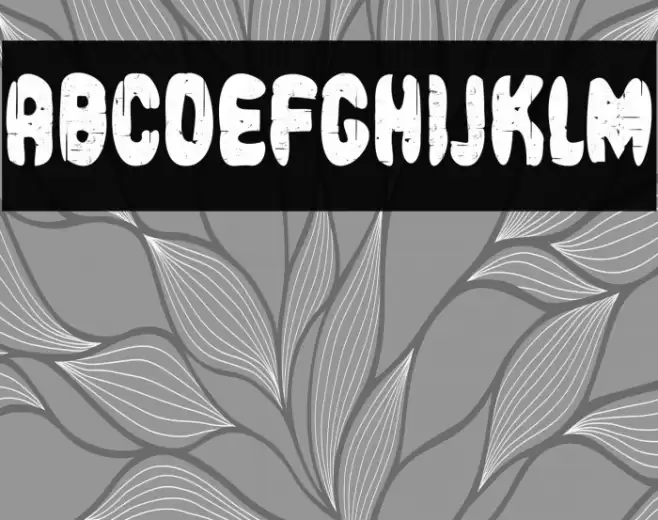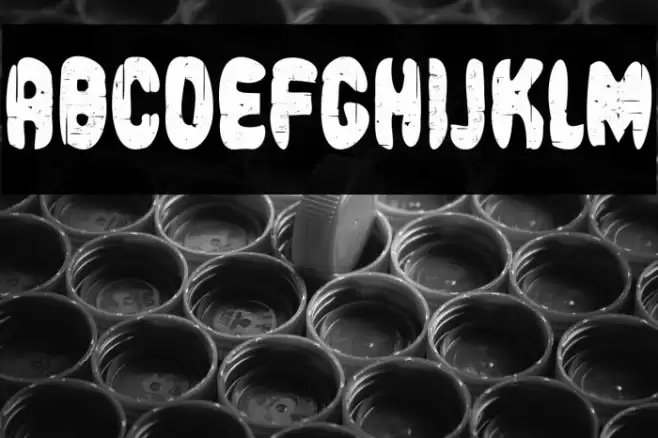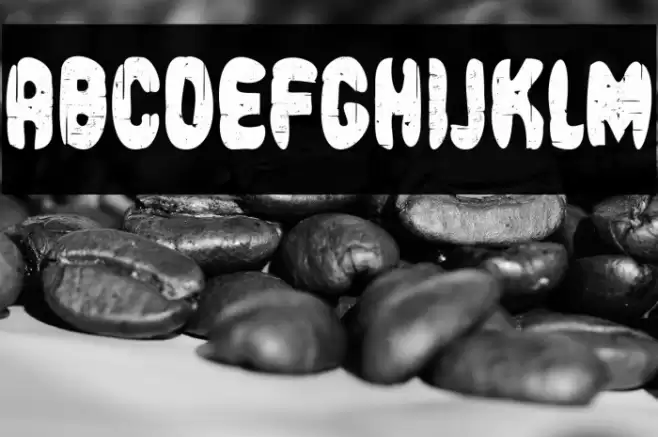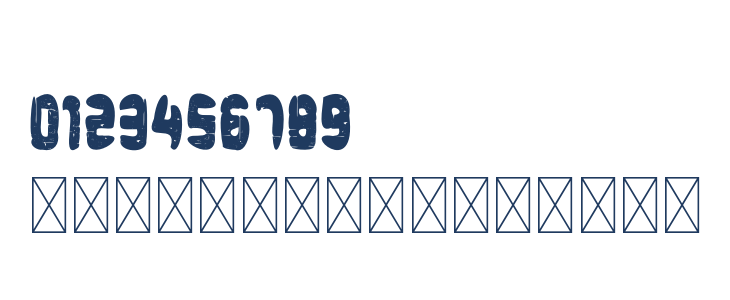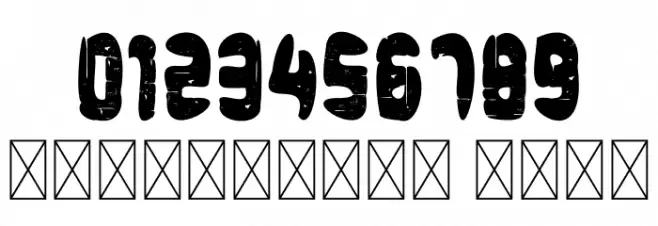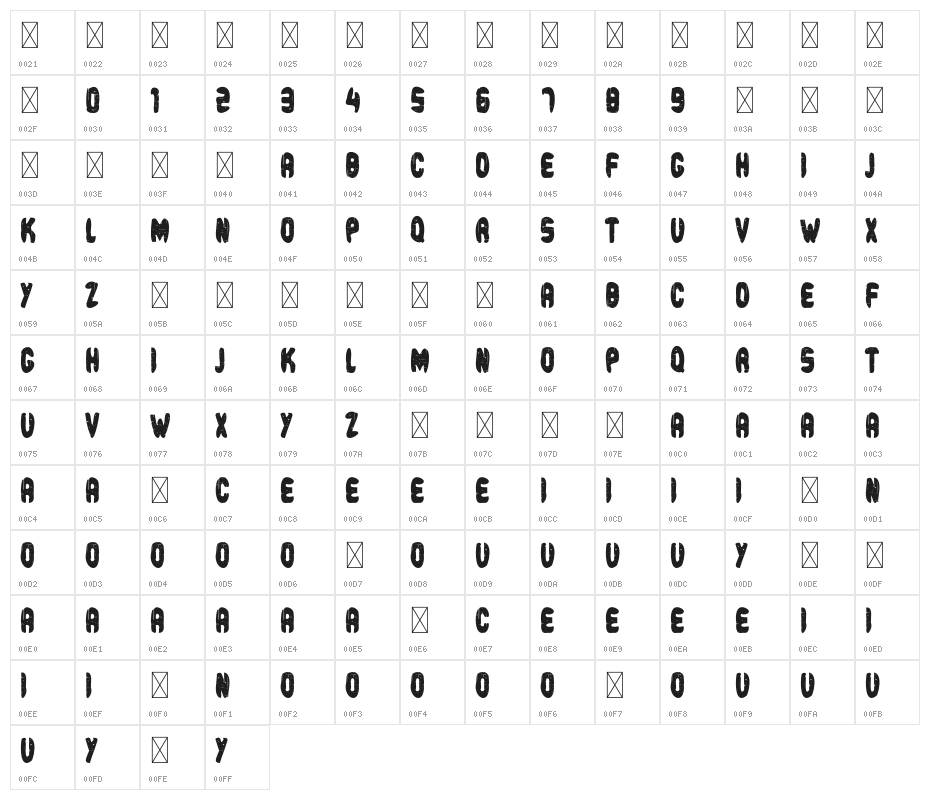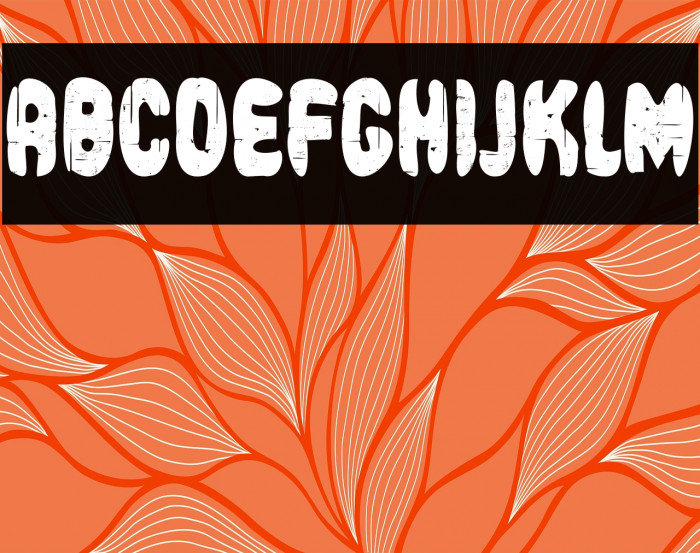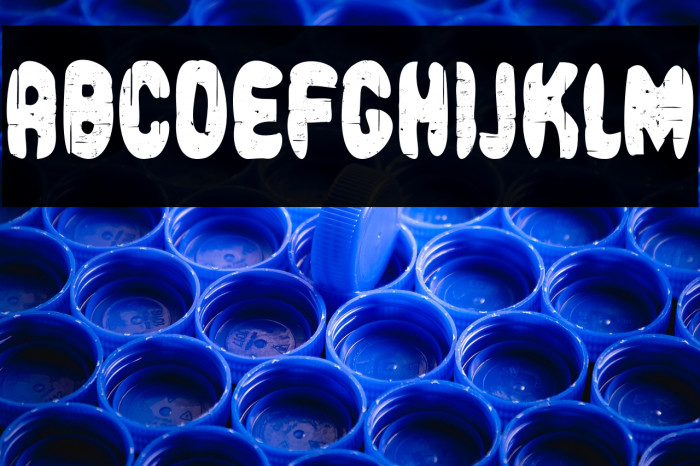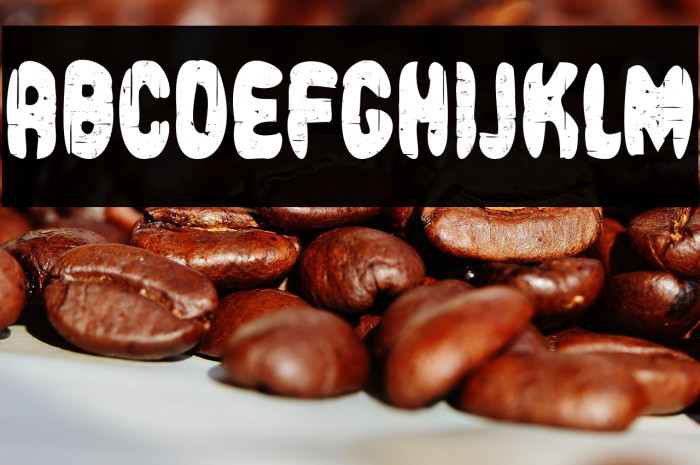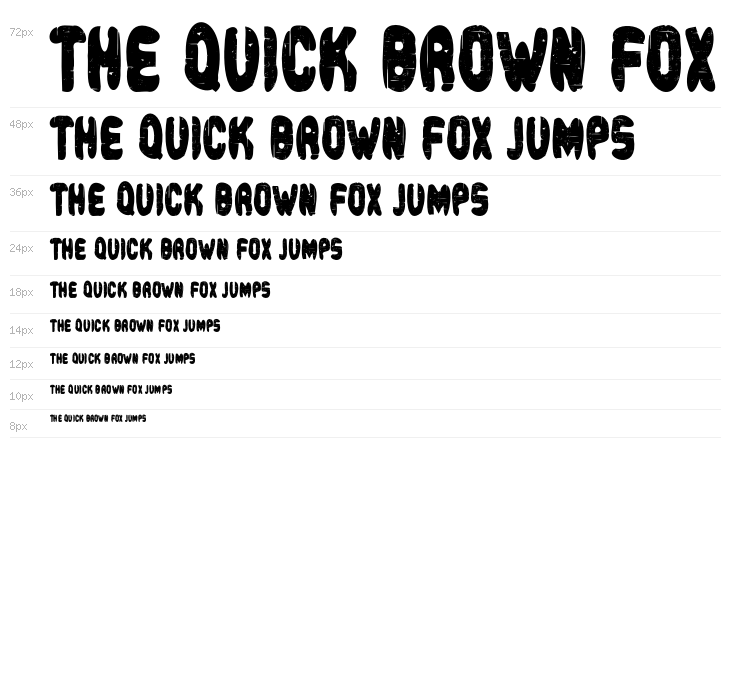
Damage Bold Font
Damage Bold Description
This font features a bold, distressed style with a rugged, textured appearance. The characters are thick and heavy, giving a strong visual impact. The distressed effect adds a sense of wear and tear, making it ideal for designs that require a gritty or vintage look. The uppercase and lowercase letters maintain a consistent weight, while the numbers and special characters follow the same bold and textured theme. This font is perfect for projects that aim to convey a sense of toughness or a worn aesthetic.
A bold, distressed font with a rugged, textured appearance from Uncategorized fonts.
- Font: Damage Bold
- Proposed Projects: Ideal for posters, album covers, branding for outdoor or adventure-themed products, and any design needing a vintage or gritty look.
- Overall Style: Vintage